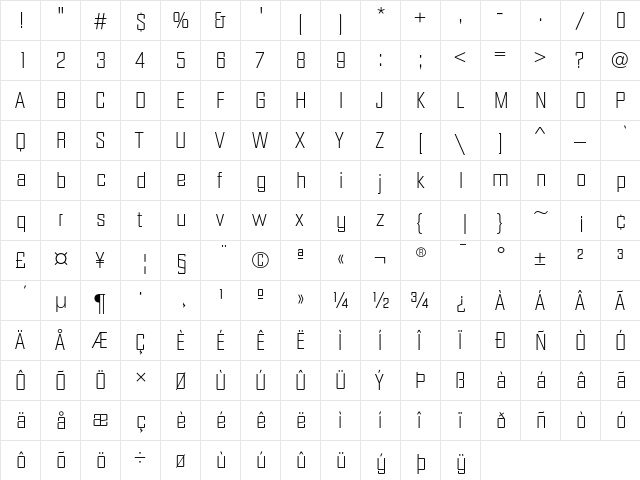
DiamanteEF ExtraLight
Design Context for DiamanteEF Typeface
DiamanteEF offers clean, dependable letterforms without strong stylistic allegiance, making it a practical choice for designers who need flexibility. The delicate stroke weight brings airiness and refinement to layouts.